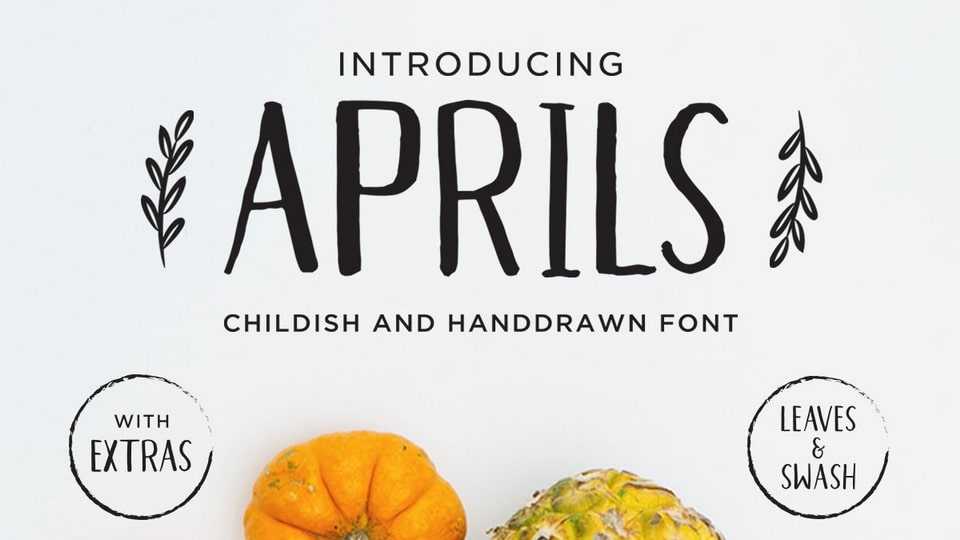
Download Aprils font, a super fun, hand-drawn typeface that comes with extras leaf ornament and swashes so that your designs can really get that “hand-drawn” feel.